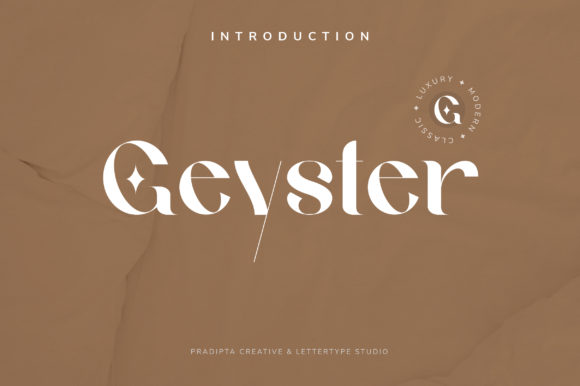
Prepare to embark on a remarkable typographic adventure with Geyster, the display font that exudes timeless charm and contemporary flair. Step into a world where classic design elements harmonize beautifully with modern sensibilities, creating a visual masterpiece that will captivate audiences.
Geyster is not merely a font; it's an artistic expression that breathes life into your creative visions. Its meticulously crafted characters, each a testament to the designer's unwavering dedication, combine to form a symphony of elegance and functionality.
With Geyster as your design partner, you'll discover a font that effortlessly elevates your projects to new heights. Whether you're crafting logos that demand attention, designing posters that resonate with viewers, or creating social media graphics that ignite engagement, Geyster will be your trusted ally, transforming your ideas into captivating realities.
Its versatility extends beyond the digital realm, as Geyster gracefully adorns physical spaces, adding a touch of sophistication to signage, packaging, and even apparel. Its presence commands attention, leaving an indelible mark on the minds of those who encounter it.
Geyster is more than just a font; it's a gateway to a world of creativity, where boundaries dissolve and imagination reigns supreme. It's a font that empowers you to express yourself authentically, to communicate your message with clarity and impact, and to leave a lasting impression on your audience.
So, embrace the allure of Geyster and elevate your designs to new heights. Let this extraordinary font ignite your creativity, captivate your audience, and leave a legacy of visual excellence that will endure for years to come.